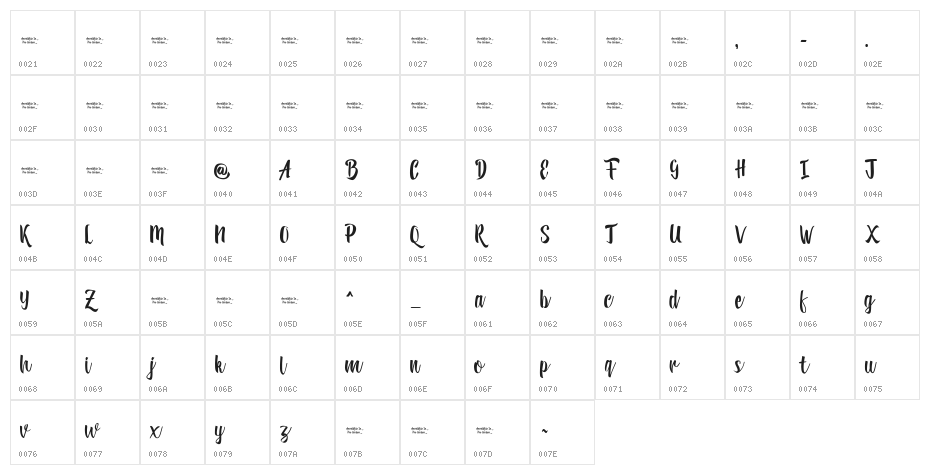
Reybro Font
Reybro Description
This font features a bold and expressive script style, characterized by its fluid and dynamic strokes. The uppercase letters are striking with a slight slant, giving them a sense of movement and energy. The lowercase letters maintain a consistent flow, enhancing readability while retaining a playful and artistic flair. The font's overall appearance is modern yet retains a touch of classic calligraphy, making it versatile for various design needs. The special characters are designed to complement the letters, ensuring a cohesive look across all text elements.
| Use Case | Logos, Headlines, Invitations |
| Proposed Projects | Ideal for branding, invitations, greeting cards, and creative projects that require a personal touch. |